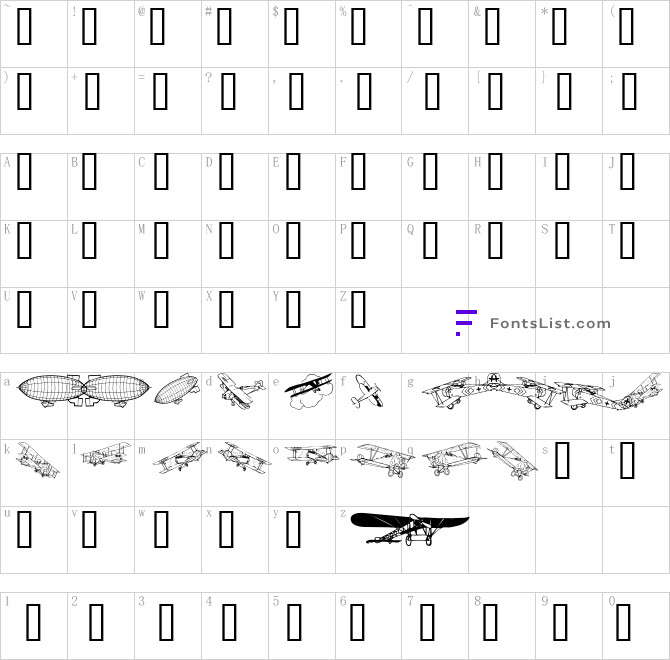
- Font Name:Aeroplanes
Aeroplanes.ttf is a very beautiful artistic font, Aeroplanes.ttf is widely used in the design and printing of various books and pictures,Aeroplanes.ttf has a strong visual impact,Aeroplanes.ttf is a commonly used font in newspapers, magazines and books, and is used in posters, e-commerce Poster design, store design, logo design, font design and other fields.Aeroplanes.